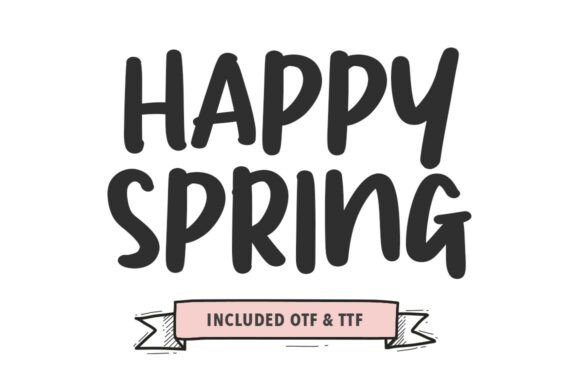
Spring into Creativity with the Happy Spring Font
There’s something magical about stepping outside into the fresh air as spring arrives. The world is full of vibrant colors and the sweet scent of blooming flowers, and it’s the perfect time to refresh your design projects. For many designers, the arrival of spring is a signal to shake off the winter blues and get creative.
That’s where the Happy Spring Font comes in – a robust and cheerful display typeface that captures the essence of the season. This beautiful font is designed to evoke feelings of growth and renewal, making it the perfect choice for seasonal sales banners, garden center branding, and more. With its bold weight and confident lines, the Happy Spring Font is an invaluable tool for designers looking to add a touch of springtime charm to their projects.
Key Features of “Happy Spring Font”
- Unique Characteristics: The “Happy Spring Font” features a unique, hand-drawn design with intricate details and subtle textures, giving it a playful and whimsical feel.
Happy Spring Font Review
Overall, I was really excited to dive into the Happy Spring Font. The designer has clearly put a lot of thought into creating a unique and cheerful font that’s perfect for spring-inspired projects. ✨ I love how the font’s rounded edges and soft lines evoke a sense of warmth and friendliness.
- The font’s playfulness and whimsy make it perfect for children’s books, greeting cards, and other projects that require a lighthearted touch.
- The font’s consistency across different sizes and styles makes it easy to use in a variety of contexts.
- The font’s legibility is excellent, making it easy to read even at small sizes.
However, there are a few limitations that I think are worth noting:
- The font may not be the best choice for formal or professional projects, as its playful style may come across as unprofessional.
- The font’s limited character set may make it difficult to use for longer blocks of text.
- The font’s design may not be suitable for projects that require a lot of customization or modifications.
Overall, I think the Happy Spring Font is a great choice for designers looking to add a touch of springtime magic to their projects. While it may have some limitations, its unique design and excellent legibility make it a valuable addition to any font library. ⚠️ Just be sure to consider the project’s context and audience before choosing this font.
The Happy Spring Font is ideal for spring-themed designs, Easter cards, and St. Patrick’s Day decorations. You can also use it for any other project that requires a playful and cheerful font.
Use the Happy Spring Font in combination with bright and pastel colors to create a visually appealing design. You can also experiment with different font sizes and styles to add emphasis to your text.